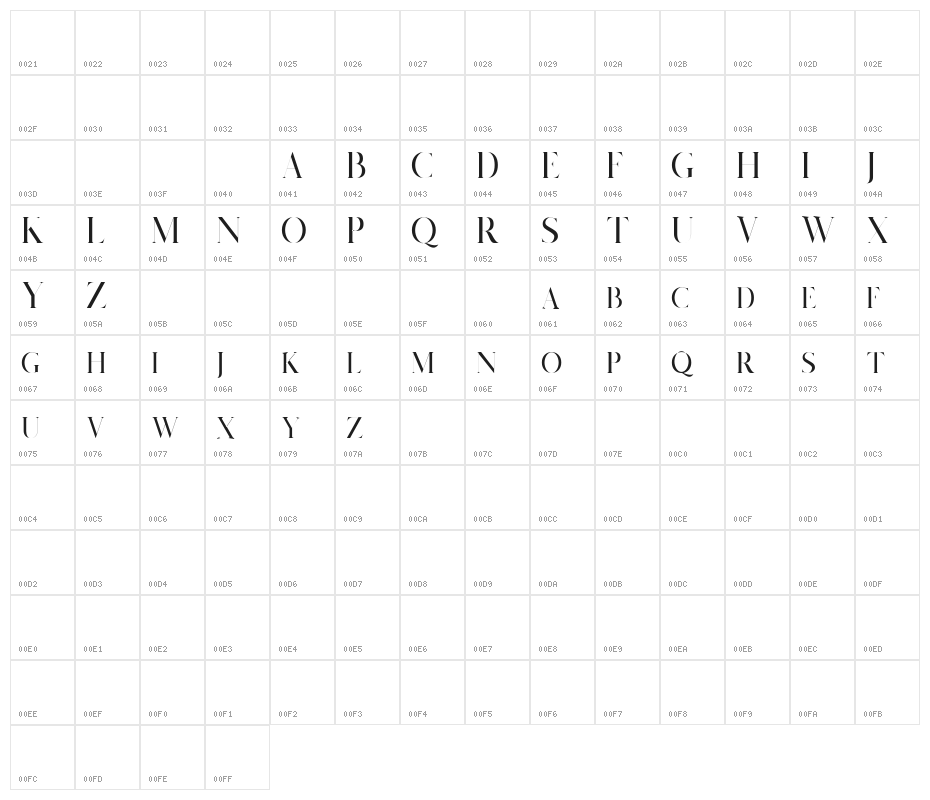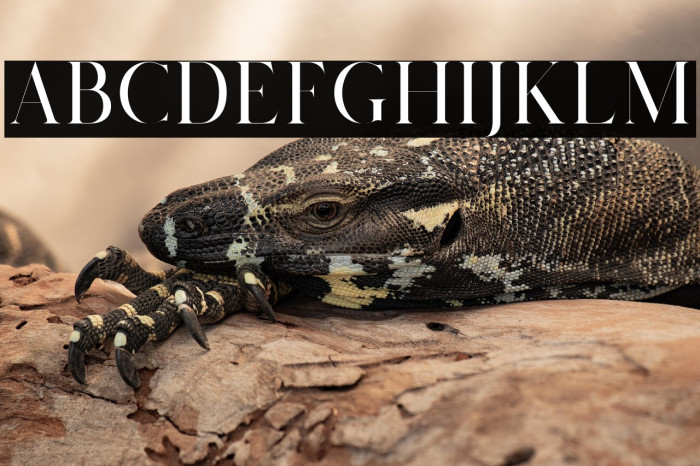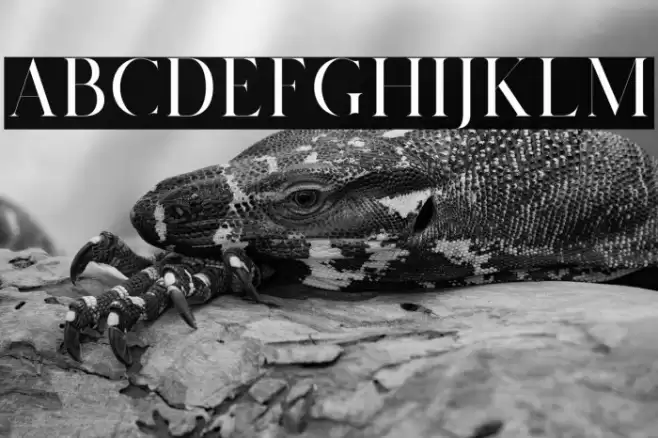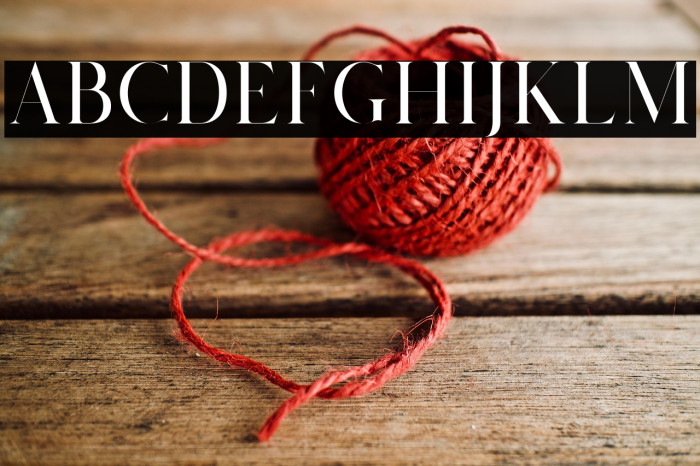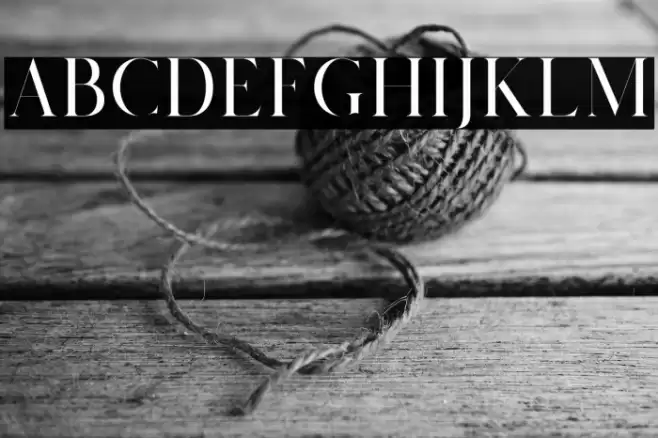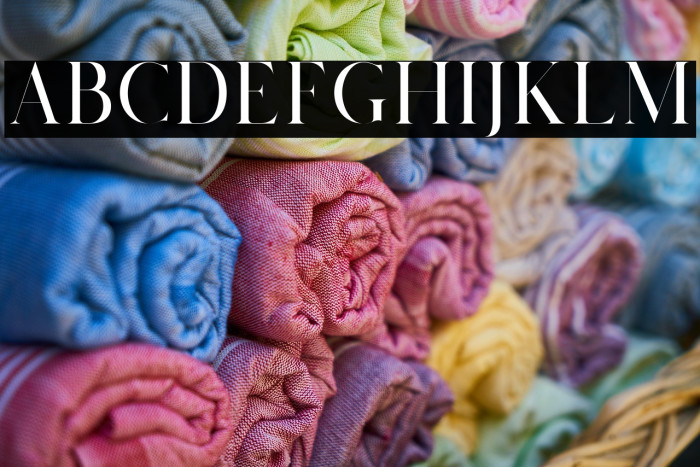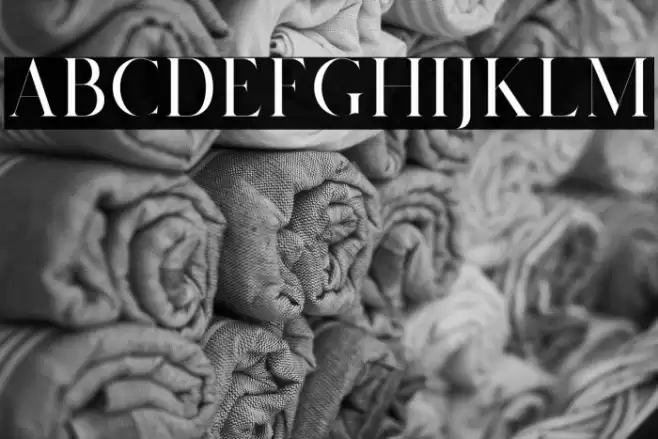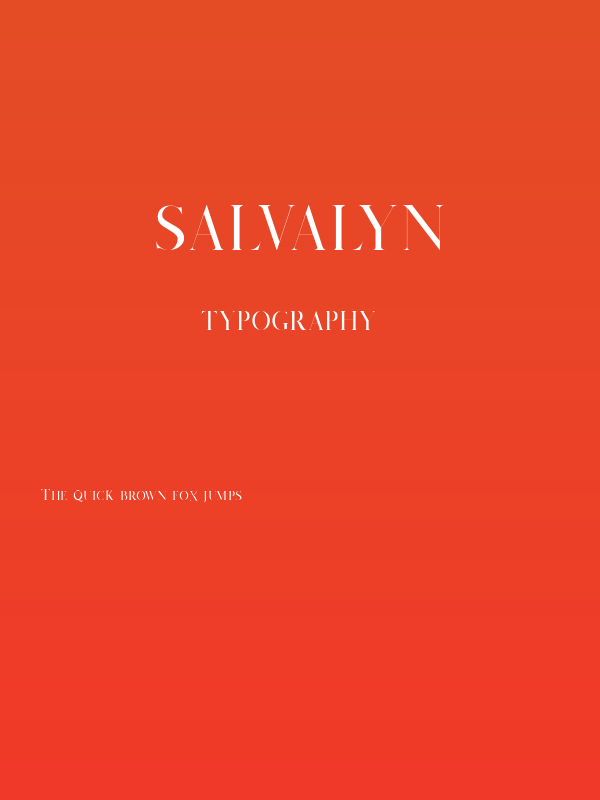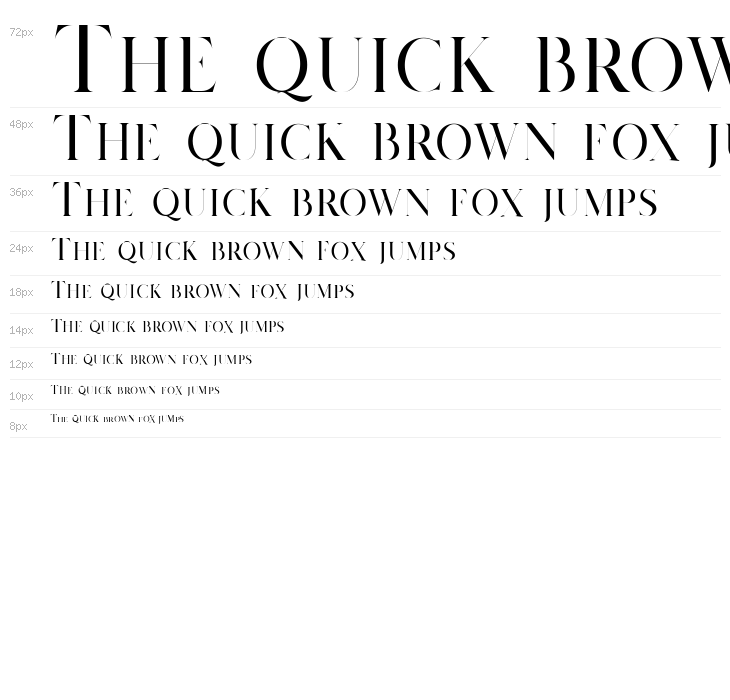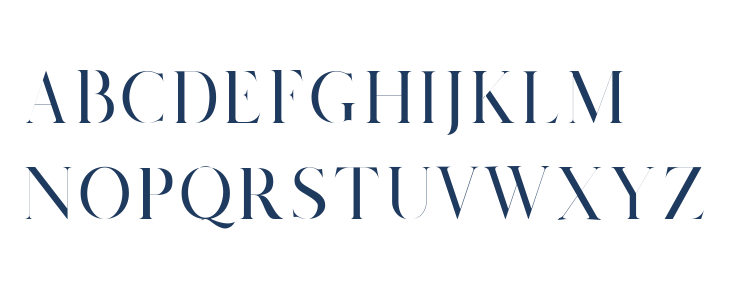
Salvalyn Font
Salvalyn Description
This font exhibits a sophisticated and elegant style, characterized by its high contrast between thick and thin strokes. The serifs are sharp and pronounced, adding a classic touch to the overall modern aesthetic. The uppercase letters are particularly striking, with a refined balance that enhances readability while maintaining a stylish appearance. The lowercase letters mirror this elegance, providing a cohesive look across different text sizes. This font is well-suited for projects that require a touch of luxury and sophistication, such as branding for high-end products, editorial design, or elegant invitations.
| Proposed Projects | Ideal for luxury branding, editorial design, and elegant invitations. |